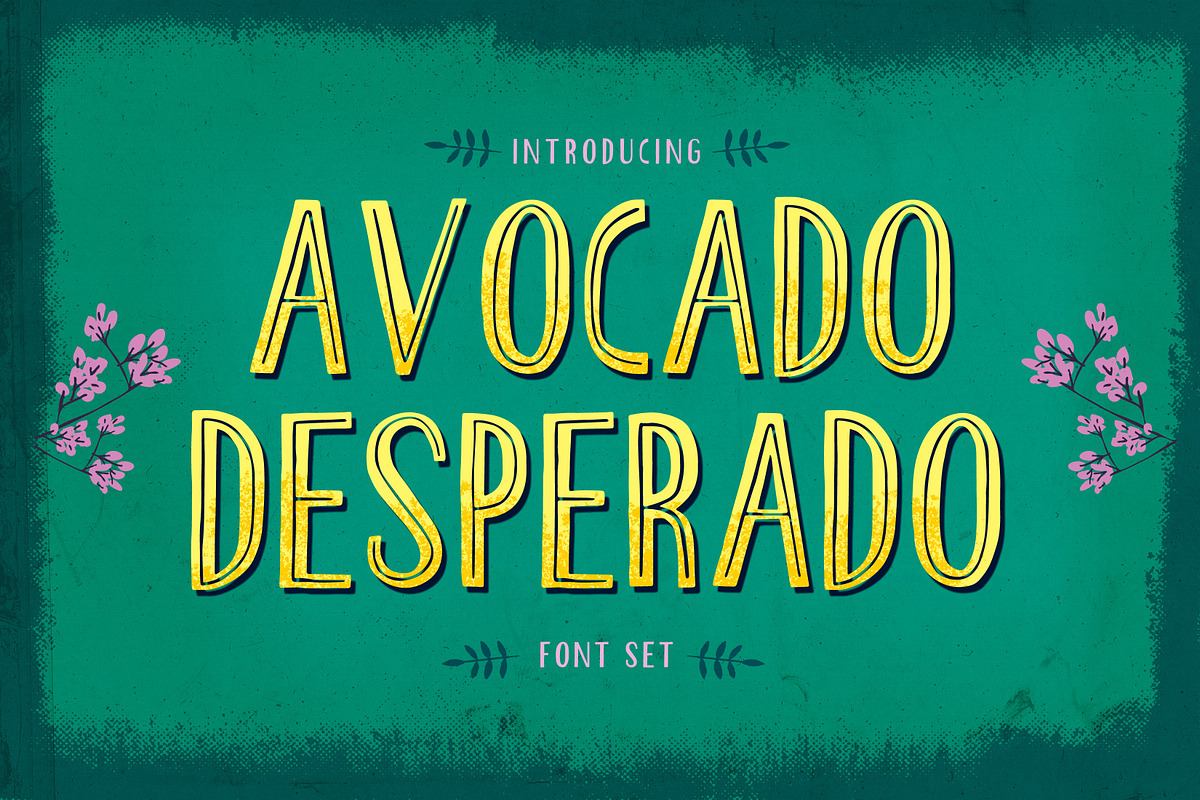
Avocado Desperado Font Set Free Download is a bold and playful typeface collection that mixes western flair with a quirky modern twist. Perfect for posters, fun branding, retro-style packaging, and creative social media content, this font set brings character and charm to every design it touches. With stylized letterforms and a slightly vintage feel, it’s ideal for projects that need a mix of humor and bold personality.
Avocado Desperado Font Set Free Download includes multiple styles, giving you the flexibility to layer or pair different looks within the same family. It’s great for making standout headlines, eye-catching logos, or themed event graphics with a touch of wild west whimsy.